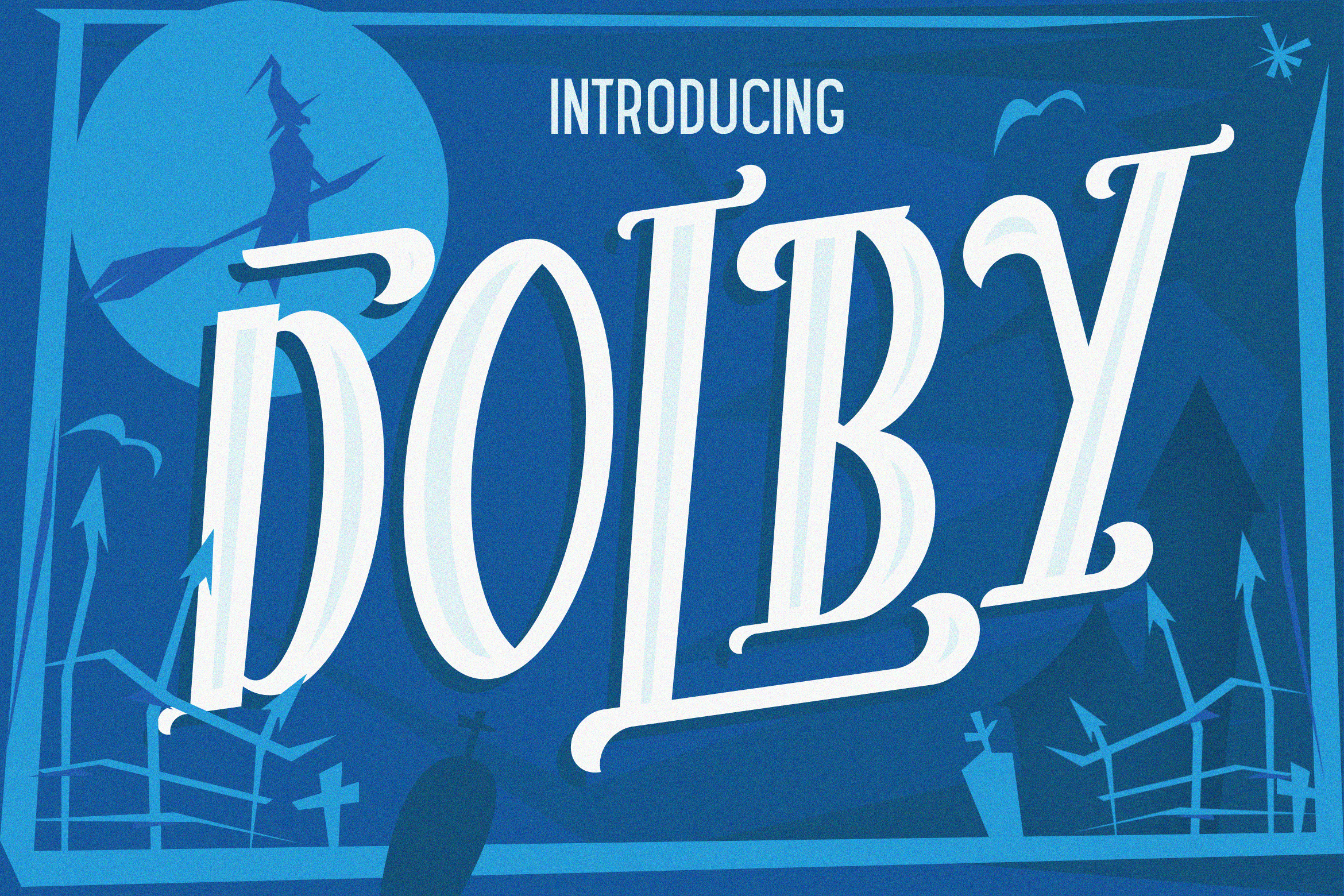
The Dolby Font
The Dolby Font is new font from Leo Supply Co, the font with simple, playful, wide, experimental and versatile character font set.
Come with 3 styles, a regular, tall and italic to create an option for the designs. To create the beautiful combination, Mix and match the upper and lowercase letters and then mix with the alternative and ligature glyphs.
The Dolby Font includes a full set of capital and lowercase letters, as well as multi-lingual support, currency figures, numerals, punctuation and ligatures. Mix and match the upper and lowercase letters and throw in some memphis-style doodles to get exactly the look you want. then mix with the alternative glyphs
Ideal for loud messages. Very interesting to use for book covers, posters, logos, name tags, handwritten quotes, product packaging, merchandise, social media & greeting cards. Also, ideal to make t-shirts design and other clothing products.